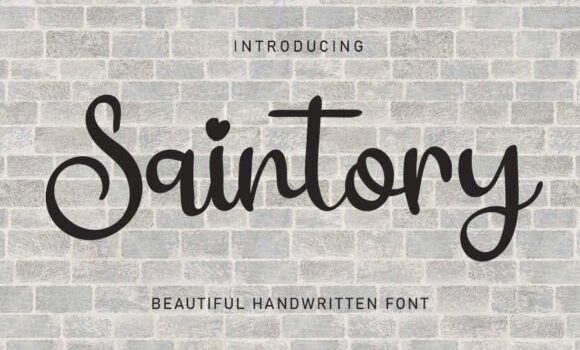
saintory
Saintory Font – Free Download Introduction to Saintory Font Saintory is a spectacular font, defined by characters that dance along the baseline. 📸 Preview Gallery 4 images 📌 Product Name Saintory Font 👤 Author shiddiq.art 📂 Category Explore ⬇️ Download